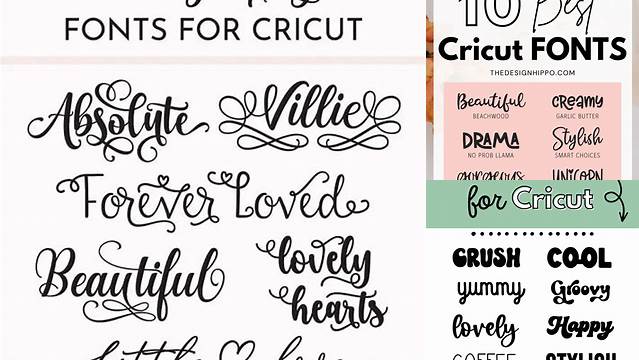
Top Calligraphy Fonts On Cricut Design Space
Choosing the right font can make or break your project, especially when it comes to calligraphy. Calligraphy fonts add a touch of elegance and sophistication to your designs, and Cricut Design Space offers a variety of options to explore. But with so many choices, where do you even begin? Guys, don't worry! This guide will walk you through the best calligraphy fonts available on Cricut Design Space, helping you create stunning projects every time. We’ll dive deep into different styles, discuss their best uses, and give you tips on how to make the most of them. Let's get started and transform your crafting game!
1. Elegant Script Fonts for Cricut
When you're looking to add a dash of class to your projects, elegant script fonts are your best bet. These fonts often feature flowing lines, delicate curves, and a sophisticated overall feel. Think of them as the perfect choice for wedding invitations, personalized gifts, and anything that needs a touch of formality. The beauty of calligraphy fonts lies in their ability to convey emotion and style, and elegant scripts do this exceptionally well. Imagine using a graceful font to create a custom label for a wine bottle or a heartfelt message on a greeting card. The possibilities are endless, and the result is always something special. To really nail this style, pay attention to the spacing between letters and words. A little extra space can make a huge difference in readability and overall visual appeal. Consider using ligatures, which are special characters that connect letters in a seamless and stylish way, to enhance the flow of your text even further. Remember, the goal is to create something that not only looks beautiful but also feels authentic and carefully crafted. Experiment with different weights and sizes to find the perfect balance for your project. A thicker weight can make the font stand out more, while a lighter weight adds a subtle touch. Ultimately, choosing an elegant script font is about capturing the essence of sophistication and bringing it to your creations. So go ahead, explore the world of graceful typography and let your designs shine!
2. Modern Calligraphy Fonts on Cricut
Modern calligraphy fonts offer a fresh take on the classic art form, blending traditional strokes with contemporary flair. If you're aiming for a chic and trendy look, these fonts are the way to go. They often feature bold lines, unique letterforms, and a playful vibe that sets them apart from more traditional styles. Think of them as the perfect choice for branding materials, social media graphics, and anything that needs a touch of modern elegance. The versatility of these calligraphy fonts allows them to fit seamlessly into a wide range of projects. Imagine using a bold, stylish font to create a logo for your small business or a catchy headline for your blog. The possibilities are endless, and the result is always something eye-catching and memorable. One of the key characteristics of modern calligraphy is its ability to be customized and adapted to different styles. You can play with varying the thickness of the strokes, adding swashes and flourishes, and even incorporating hand-drawn elements to create a truly unique design. To really make your text stand out, consider pairing it with a clean and simple sans-serif font for contrast. This can help balance the boldness of the modern calligraphy and ensure that your message is clear and easy to read. Remember, the goal is to create something that feels both contemporary and timeless. Experiment with different combinations and techniques to find your own signature style. So go ahead, embrace the world of modern typography and let your creativity shine!
3. Best Cursive Fonts for Cricut Projects
When you're looking to add a personal touch to your projects, cursive fonts are an excellent choice. These fonts mimic the flow and rhythm of handwriting, giving your designs a warm and inviting feel. Whether you're creating personalized gifts, heartfelt cards, or custom home decor, cursive fonts can bring a sense of authenticity and charm to your work. Think of them as the perfect way to add a human touch to your creations. The beauty of calligraphy fonts in a cursive style lies in their ability to convey emotion and connection. Imagine using a flowing script to write a thank you note, create a custom monogram, or personalize a wedding invitation. The possibilities are endless, and the result is always something special. To really make the most of cursive fonts, pay attention to the spacing between letters and words. A smooth, connected flow is essential for readability and visual appeal. Consider using ligatures, which are special characters that connect letters in a seamless and stylish way, to enhance the overall look of your text. Experiment with different weights and sizes to find the perfect balance for your project. A thicker weight can make the font stand out more, while a lighter weight adds a subtle touch. Ultimately, choosing a cursive font is about capturing the essence of handwriting and bringing it to your designs. So go ahead, explore the world of flowing typography and let your creativity shine!
4. Free Calligraphy Fonts on Cricut Design Space
One of the best things about Cricut Design Space is that it offers a selection of free calligraphy fonts that you can use in your projects without spending extra money. This is a fantastic option for beginners who are just starting to explore the world of typography, as well as experienced crafters who are looking for budget-friendly options. These calligraphy fonts are just as beautiful and versatile as the paid ones, allowing you to create stunning designs without breaking the bank. The availability of free fonts opens up a world of possibilities for your projects. Imagine using a graceful script to create personalized labels, design custom cards, or add a special touch to your home decor. The possibilities are endless, and the result is always something unique and memorable. While free fonts can be a great resource, it's important to be aware of their limitations. Some free fonts may have a limited character set, meaning they don't include all the letters, numbers, and symbols you might need. Additionally, the quality of free fonts can vary, so it's important to choose ones that are well-designed and easy to read. To make the most of free calligraphy fonts, take some time to experiment with different styles and weights. Don't be afraid to try something new and see how it looks in your project. You might be surprised at the beautiful results you can achieve. So go ahead, explore the world of free typography and let your creativity shine!
6. Script Calligraphy Fonts for Wedding Invitations
Planning a wedding? Script calligraphy fonts are the perfect choice for adding a touch of romance and elegance to your invitations. These calligraphy fonts evoke a sense of timeless beauty and sophistication, setting the tone for your special day. From classic and traditional scripts to modern and whimsical styles, there's a script font to suit every wedding theme. The beauty of using calligraphy fonts for wedding invitations lies in their ability to convey emotion and create a lasting impression. Imagine receiving an invitation adorned with flowing script, hinting at the romance and joy that awaits. The possibilities are endless, and the result is always something cherished and memorable. When choosing a script font for your wedding invitations, consider the overall style and theme of your wedding. A formal wedding might call for a traditional script with elegant flourishes, while a more casual wedding could benefit from a modern and playful script. Pay attention to the readability of the font as well. While a beautiful script is important, your guests need to be able to easily read the invitation details. To make your invitations even more special, consider using a combination of fonts. Pair a script font for the names and key details with a clean and simple sans-serif font for the body text. This can create a balanced and visually appealing design. So go ahead, explore the world of script typography and let your wedding invitations shine!
7. Calligraphy Fonts for Personalized Gifts
Adding a personal touch to gifts is always a thoughtful gesture, and calligraphy fonts can help you create truly unique and memorable presents. Whether you're personalizing a mug, a journal, a piece of artwork, or any other item, using a beautiful calligraphy font adds a touch of elegance and sophistication. Think of it as the perfect way to show someone you care and that you've put extra thought into their gift. The beauty of using calligraphy fonts for personalized gifts lies in their ability to convey emotion and create a lasting impression. Imagine receiving a gift with your name beautifully written in a flowing script, making it feel extra special and meaningful. The possibilities are endless, and the result is always something cherished and treasured. When choosing a calligraphy font for personalized gifts, consider the recipient's style and preferences. A classic script might be perfect for someone who appreciates traditional elegance, while a modern and playful font could be a better fit for someone with a more contemporary taste. Pay attention to the readability of the font as well. While a beautiful script is important, you want to make sure the message is clear and easy to read. To make your personalized gifts even more unique, consider adding embellishments and decorative elements. You can use flourishes, swashes, and other design elements to enhance the calligraphy and create a truly one-of-a-kind gift. So go ahead, explore the world of calligraphy typography and let your personalized gifts shine!
8. Designing Monograms with Calligraphy Fonts
Monograms are a classic and timeless way to personalize items, and calligraphy fonts are an excellent choice for creating elegant and sophisticated monograms. Whether you're designing a monogram for yourself, a friend, or a client, using a beautiful calligraphy font can add a touch of class and style. Think of monograms as a way to make a statement and create a lasting impression. The beauty of using calligraphy fonts for monograms lies in their ability to convey personality and create a unique visual identity. Imagine seeing your initials beautifully intertwined in a flowing script, representing your individual style and taste. The possibilities are endless, and the result is always something special and meaningful. When designing monograms with calligraphy fonts, consider the overall style and aesthetic you want to achieve. A traditional script with elegant flourishes can create a formal and sophisticated monogram, while a modern and playful font can add a touch of whimsy and personality. Pay attention to the letter combinations and how they interact with each other. Some letters may require special attention to ensure they flow together harmoniously. To make your monograms even more unique, consider adding embellishments and decorative elements. You can use swirls, lines, and other design elements to enhance the calligraphy and create a truly one-of-a-kind monogram. So go ahead, explore the world of calligraphy typography and let your monograms shine!
9. Calligraphy Fonts for Home Decor Projects
Adding a personal touch to your home decor is a fantastic way to make your space feel more inviting and unique, and calligraphy fonts can help you achieve this beautifully. Whether you're creating wall art, personalized signs, or decorative accents, using a calligraphy font adds a touch of elegance and sophistication to your home. Think of it as the perfect way to express your personal style and create a space that reflects your personality. The beauty of using calligraphy fonts for home decor projects lies in their ability to convey emotion and create a warm and welcoming atmosphere. Imagine seeing an inspirational quote beautifully written in a flowing script on your wall, adding a touch of inspiration and positivity to your daily life. The possibilities are endless, and the result is always something special and meaningful. When choosing a calligraphy font for home decor projects, consider the overall style and aesthetic of your home. A classic script might be perfect for a traditional home, while a modern and playful font could be a better fit for a contemporary space. Pay attention to the size and scale of the font as well. You want to make sure the text is legible and visually appealing in the context of your decor. To make your home decor projects even more unique, consider using a variety of calligraphy fonts and styles. You can mix and match different fonts to create interesting visual effects and add depth to your design. So go ahead, explore the world of calligraphy typography and let your home decor shine!
10. Using Calligraphy Fonts for Business Branding
In the world of business, creating a strong and memorable brand is essential, and calligraphy fonts can play a significant role in achieving this. Whether you're designing a logo, creating marketing materials, or developing your brand identity, using a beautiful calligraphy font can add a touch of elegance and sophistication to your brand. Think of it as the perfect way to stand out from the competition and create a lasting impression. The beauty of using calligraphy fonts for business branding lies in their ability to convey personality and create a unique visual identity. Imagine seeing your company name beautifully written in a flowing script, representing your brand's values and style. The possibilities are endless, and the result is always something professional and memorable. When choosing a calligraphy font for your business branding, consider the overall message and tone you want to convey. A classic script might be perfect for a traditional and established business, while a modern and playful font could be a better fit for a creative and innovative company. Pay attention to the readability of the font as well. While a beautiful script is important, you want to make sure your brand name and message are clear and easy to read. To make your business branding even more unique, consider using a custom calligraphy font that is designed specifically for your brand. This can help you create a truly one-of-a-kind identity that sets you apart from the rest. So go ahead, explore the world of calligraphy typography and let your business branding shine!